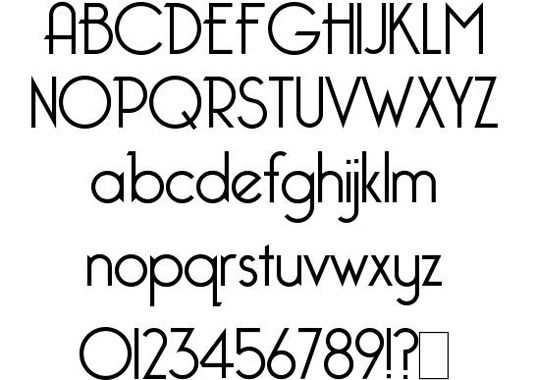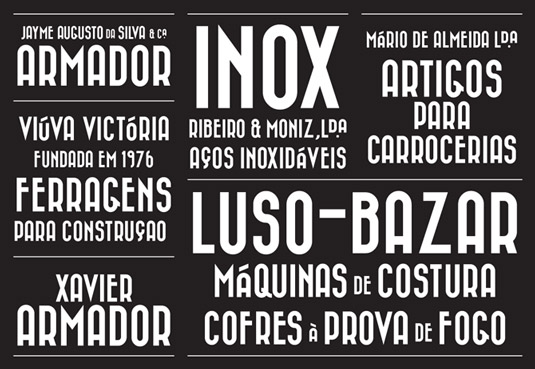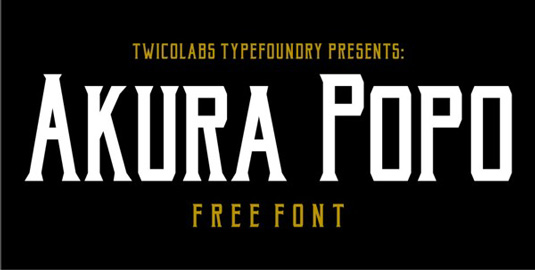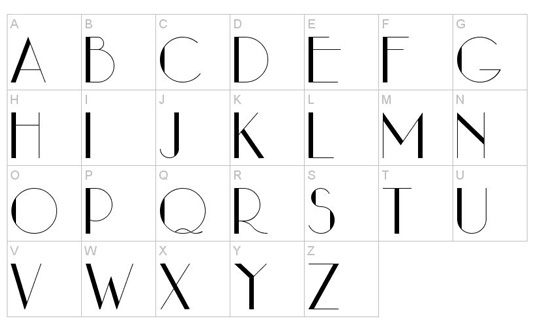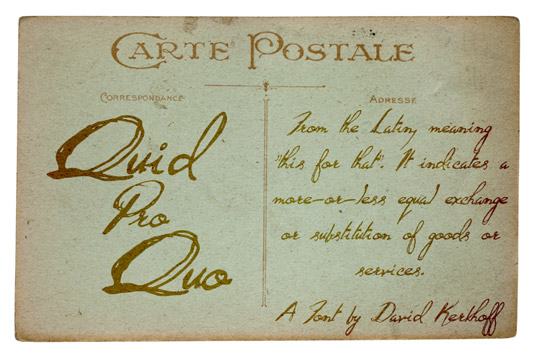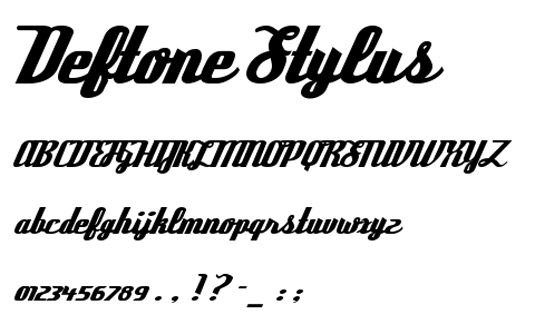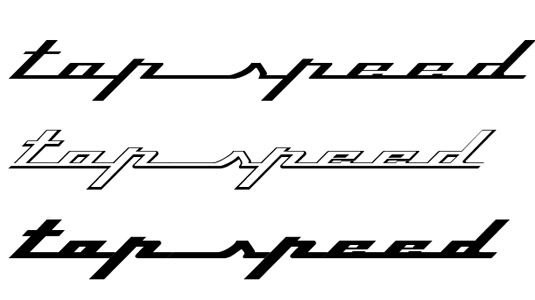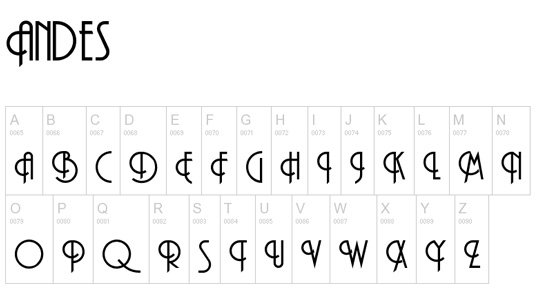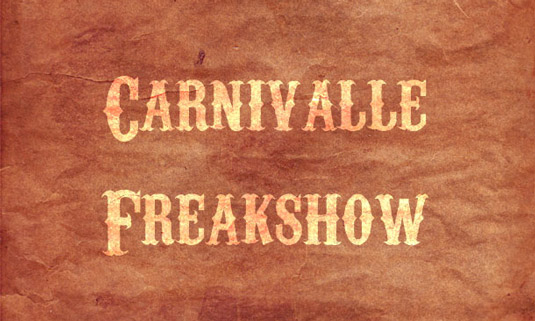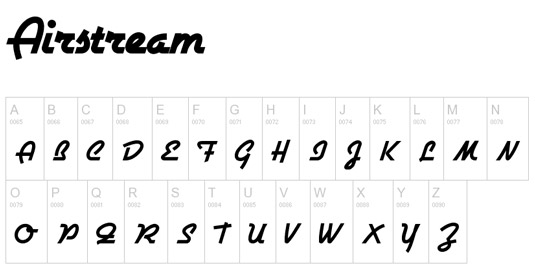
46 free retro fonts
Add age, texture and depth to your designs with the best free retro fonts that won't cost you a penny.
27. Andes
Looking for retro fonts to use in your personal project? Then you can download this baby for free. The gorgeous vintage-style font is available in two styles, with letters featuring both a curved design (as seen above) and more basic approach.
28. Sesame
An old-school-style of retro fonts, Sesame wouldn't look out of place on any vintage poster design. Developed by designer Dieter Steffmann, the font comes with a full set of uppercase letters, numbers and selection of special characters.
29. Arwen
Arwen is not just the name of a Lord of the Rings character, it's also one of the most beautiful retro fonts we've found – and it's totally free to download. Created by Keystrokes, the typeface includes a full set of uppercase characters for you to incorporate into your designs.
30. Highlands
This cool retro typeface was created by web and UI designer Tyler Galpin. He describes the font as "a charming slab-serif that draws inspiration from National Park posters of old". It's available as a free download, with any donations to its creator gratefully received.
31. Bazar
Designer Olinda Martins developed this vintage-style font from a selection of commercial signage in and around the city of Porto. Collecting several samples, Martins reinterpreted them into this stylish design, which she generously offers as a free download for all to enjoy.
32. Quid Pro Quo
Quid Pro Quo is an old-fashioned handwritten script created by designer David Kerkhoff. The typeface comes complete with a full set of upper and lowercase letters, numbers and a selection of special characters. It's free for personal use only, with the option to donate to the author should you wish.
33. Pricedown
Ray Larabie of Typodermic Fonts is the man behind this bold, game show-inspired font. Larabie comments on his creation: "Pricedown is based on a late-Sixties font called Pinto Flare; famous for its use in the titles for the TV program The Price is Right." The font is free for personal use only, but donations to the author are much appreciated.
34. Pompadour Numerals
This stylish, retro set of numerals and punctuation was developed by designer Andy Mangold. Offered online by Lost Type Co-Op, the website describes the design as "a chunky, display numeral sets inspired by the 1950s Rockabilly Hairdo. The numbers, which each fit perfectly inside of a square, are best used in large sizes." It's available as a free download, with any donations to the author gratefully received.
35. Riesling
Transport your designs back to the 1920s with this beautiful Riesling font, created by Bright Ideas. The elegant typeface includes a full set of upper and lowercase letters, numbers 0-9 and special characters.
36. Carnivalee Freakshow
Carnivalee Freakshow typeface would fit in perfectly to any Western-inspired design. Created by Christopher Hansen, this popular font has amassed over two million downloads since its release. It's free for personal use only.
37. Top Speed
This cool retro font has more than a hint of 1950s Chevrolet to it; you can virtually smell the rubber and gasoline. Designed by Jason Vanderhill, Top Speed comes in these three different variations. To link letters, simply use the underscore key. It's free for personal use.
38. Echo Deco
Perfect for a retro-style music poster, typeface Echo Deco was created by GreyWolf Webworks. Free for personal use only, this font comes complete with a full set of uppercase letters, numbers and special characters.
39. Deftone Stylus
This beautiful script, retro-style font is another by Ray Larabie of Typodermic Fonts. Larabie comments on his typeface, "Deftone Stylus is a structured, industrial script from the late 20th century. It was rebuilt in 2011 and now features custom letter pairs to make words flow."
40. Bellerose
This elegant typeface Bellerose is a popular choice, having been downloaded almost three million times since its release. The sophisticated design was created by James M. Harris, and includes a full set of upper and lower case letters and numbers. It's free for personal use only.
41. Airstream
This is just one of many retro fonts designed by Nick's Fonts, but Airstream just made it as our favourite. The designer has over 100 designs to choose from, which collectively have been downloaded over 21 million times.
A bold and stylish retro-inspired script font, Streetwear is suitable for logos, posters, branding, packaging and much more. Available from Behance, the website states: "Streetwear looks like 1960s and 70s fashion and sport-related typeface, unique and fun at the same time." Streetwear is free for both personal and commercial use.